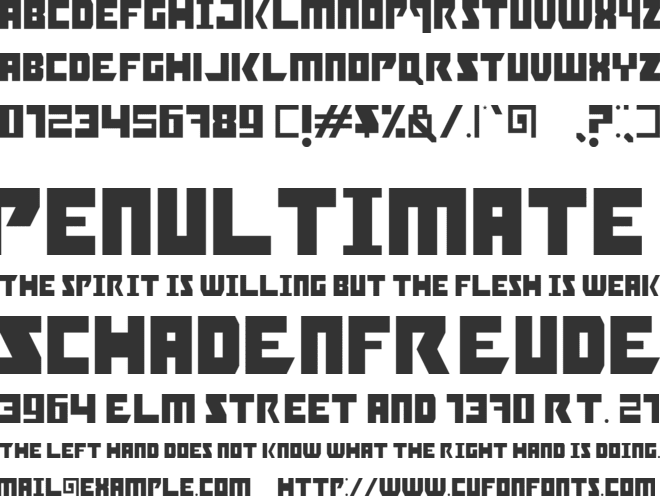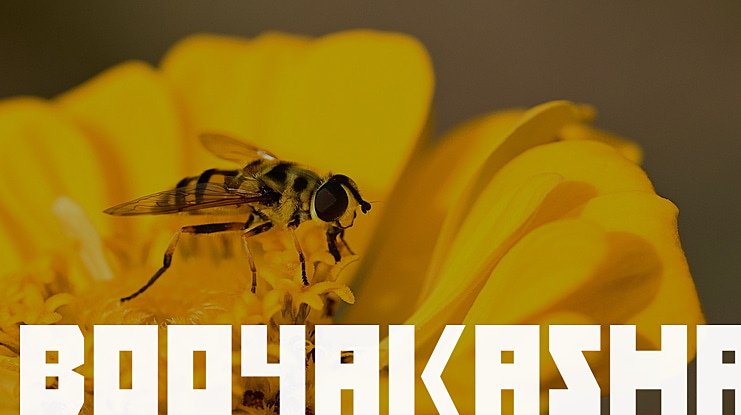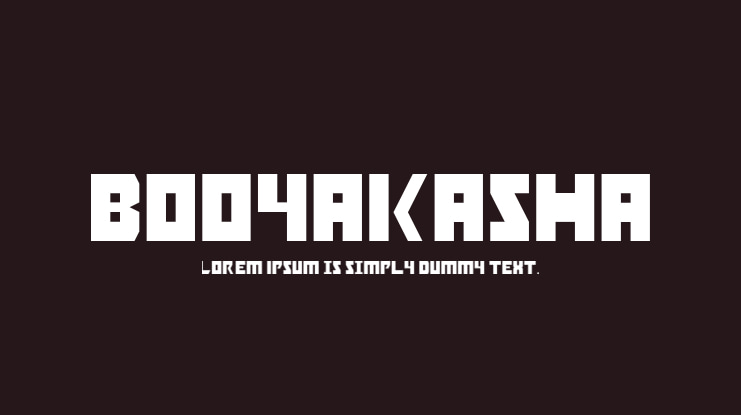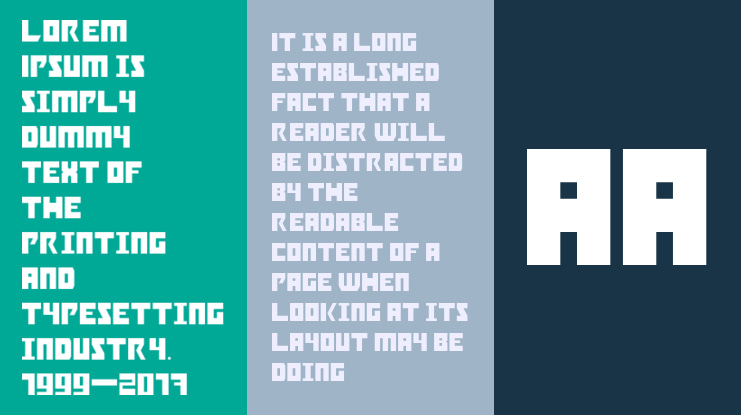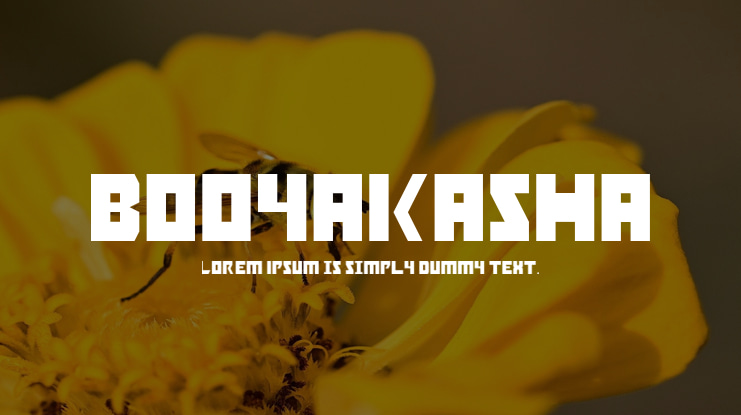
Booyakasha Font
This is the font for the Nickelodeon Teenage Mutant Ninja Turtles title. At least the "TURTLES" part. It is free of use. Enjoy and BOOYAKASHA!